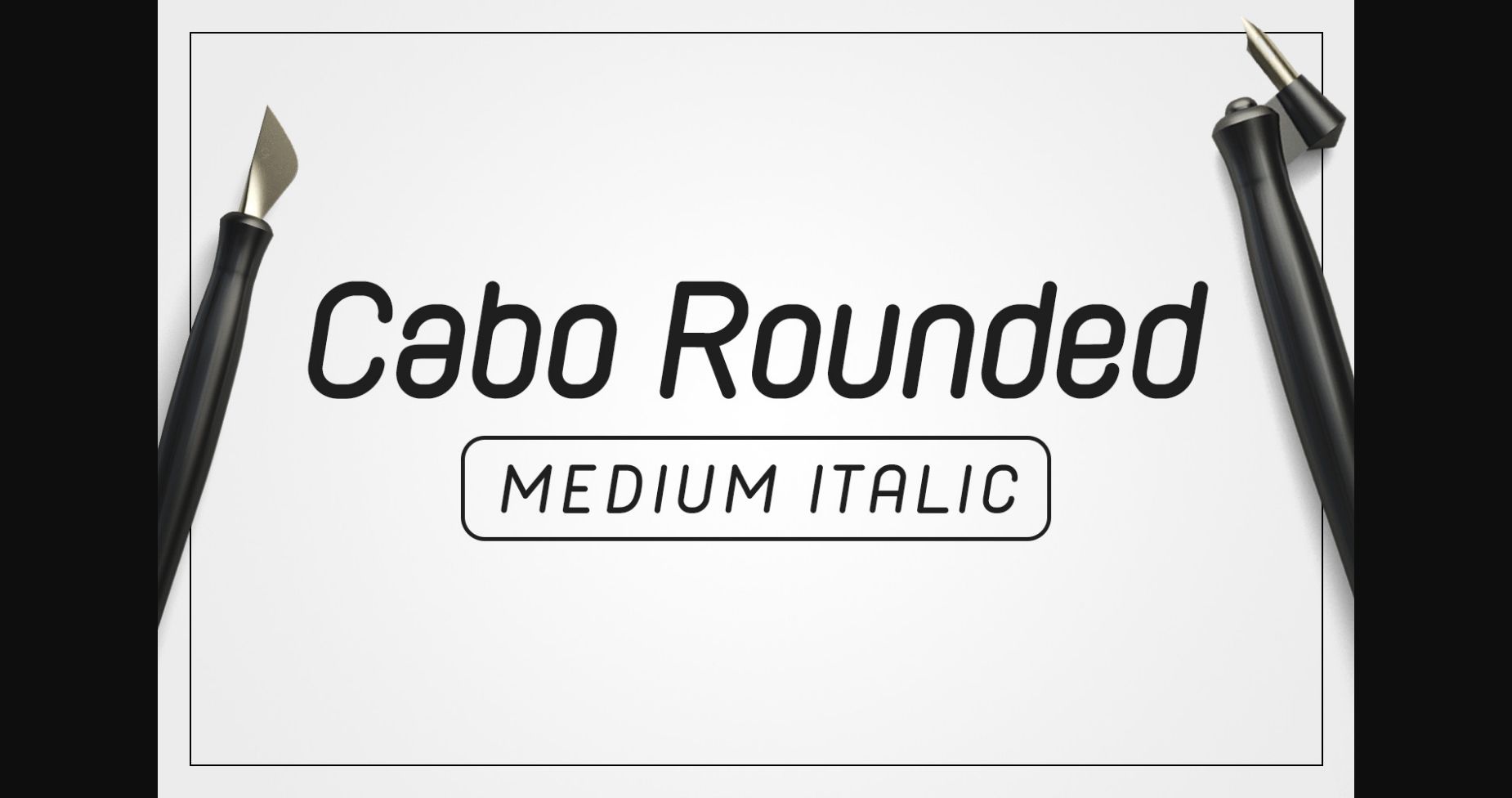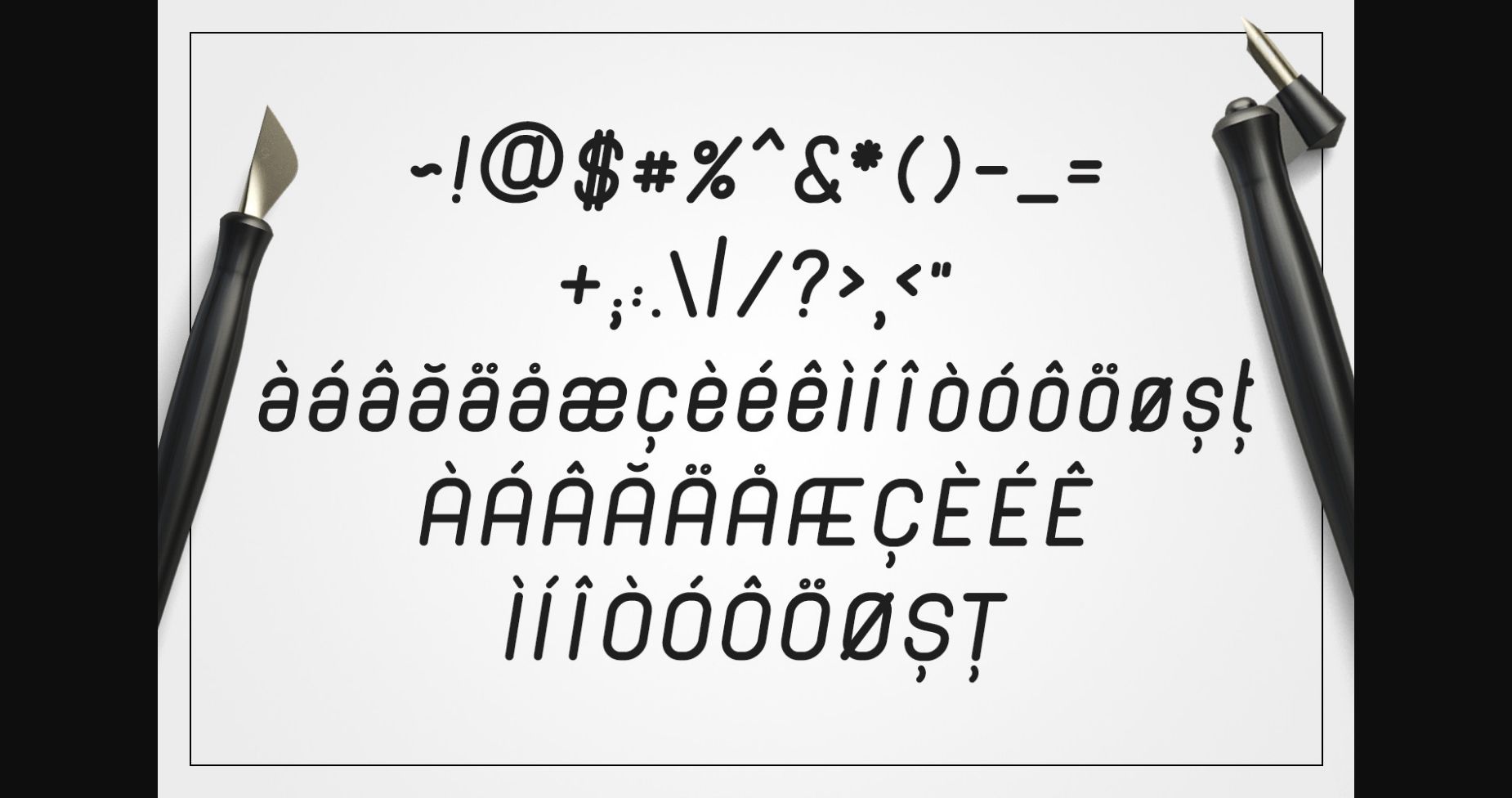
Cabo Rounded Medium Italic is a modern and clean sans serif font. It can easily be matched to an incredibly large set of projects, so add it to your creative ideas and notice how it makes them stand out!